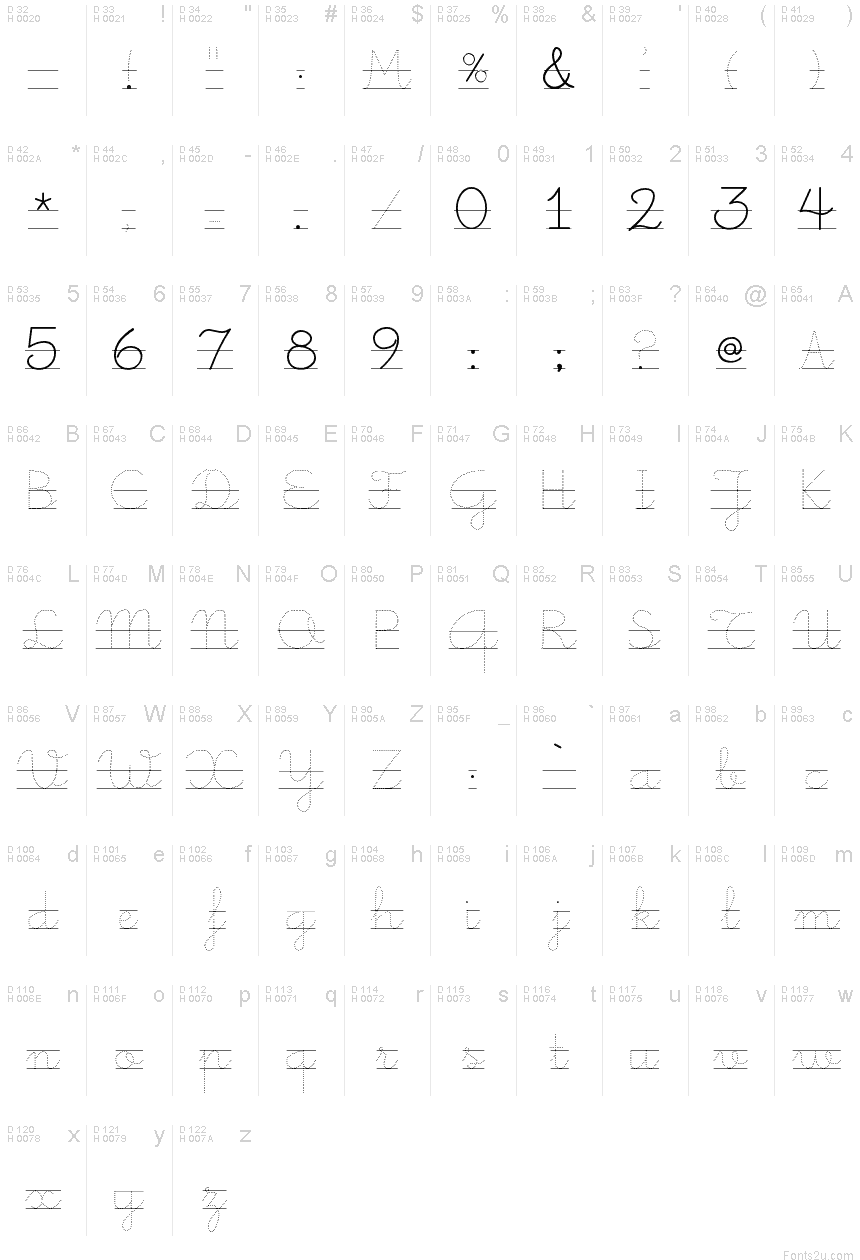
Little School 5
Little School 5 by Alberto Gomez Gomez is a free school script with dotted strokes that recall handwriting practice sheets. Its tall looping letters have a light monoline structure and generous swings above and below the writing line. The dots give every curve a stitched, delicate texture.
Tracing worksheets are its clearest setting, followed by early-literacy activity books. It can also bring a childlike handmade note to school-event posters and educational games. The dotted lettering could shape a friendly identity for children's tutoring brands.